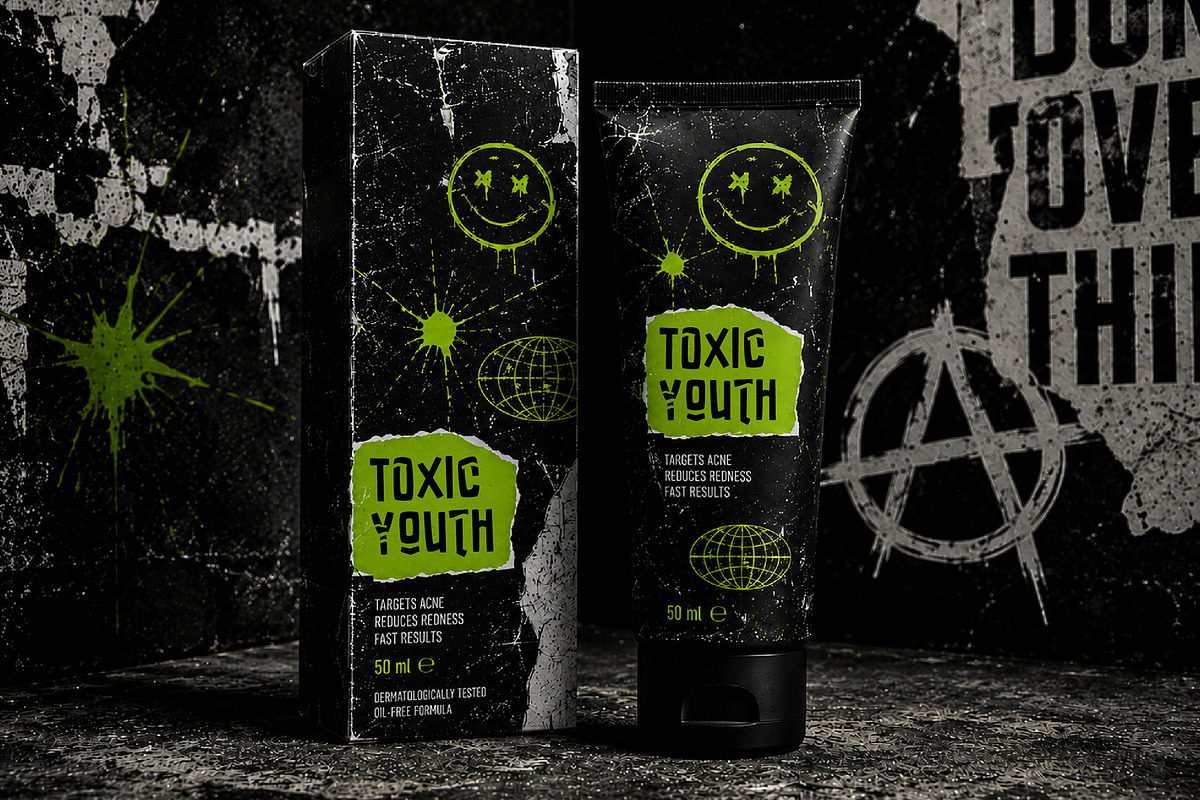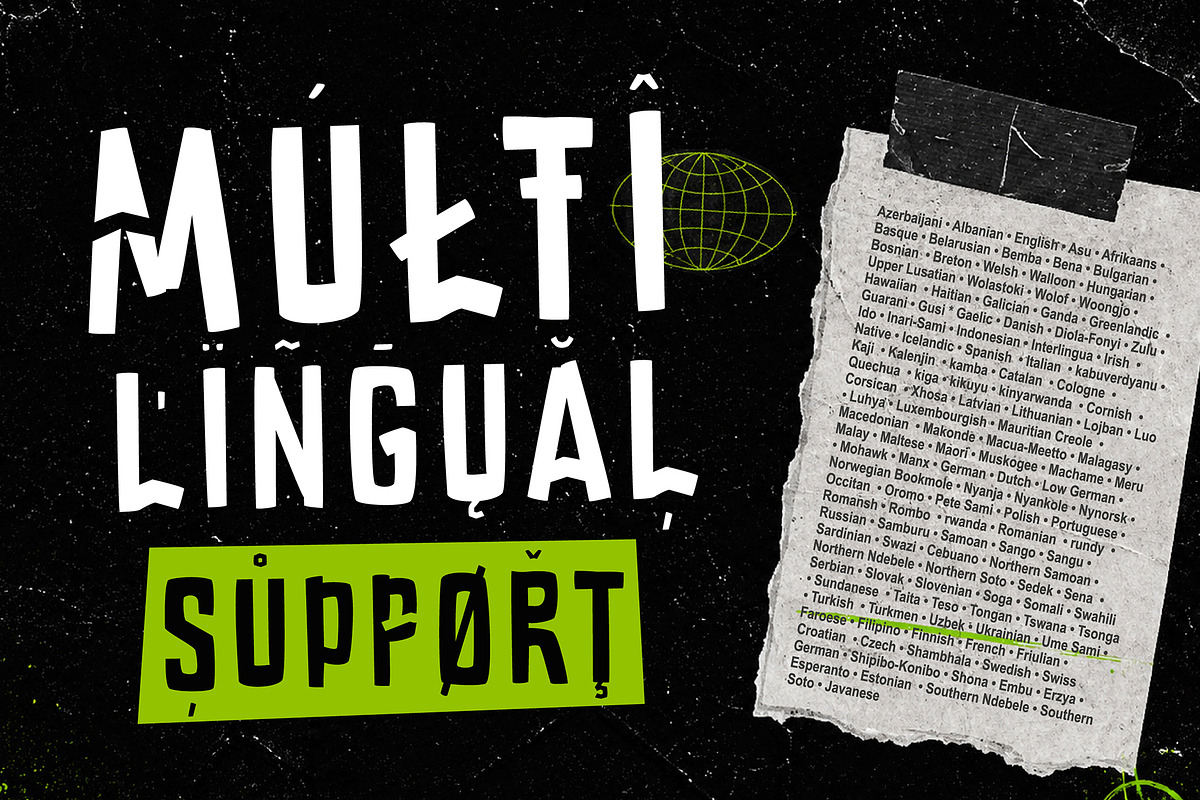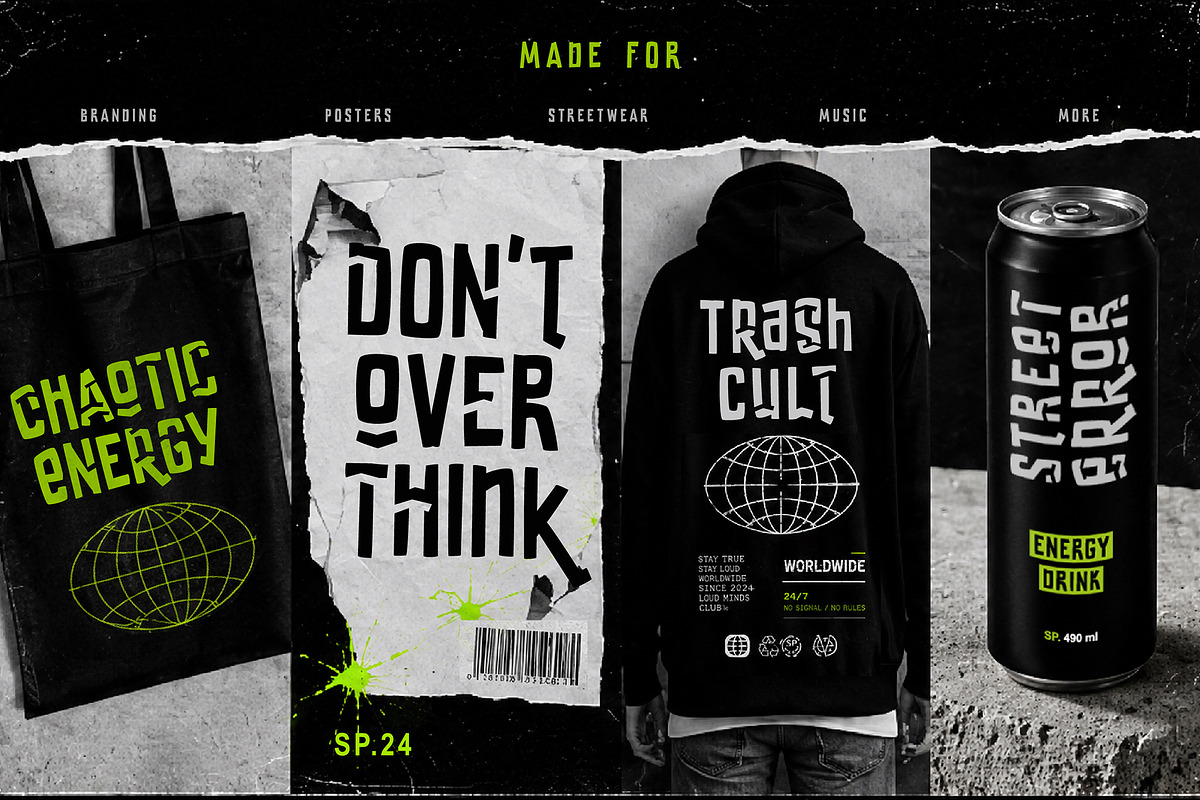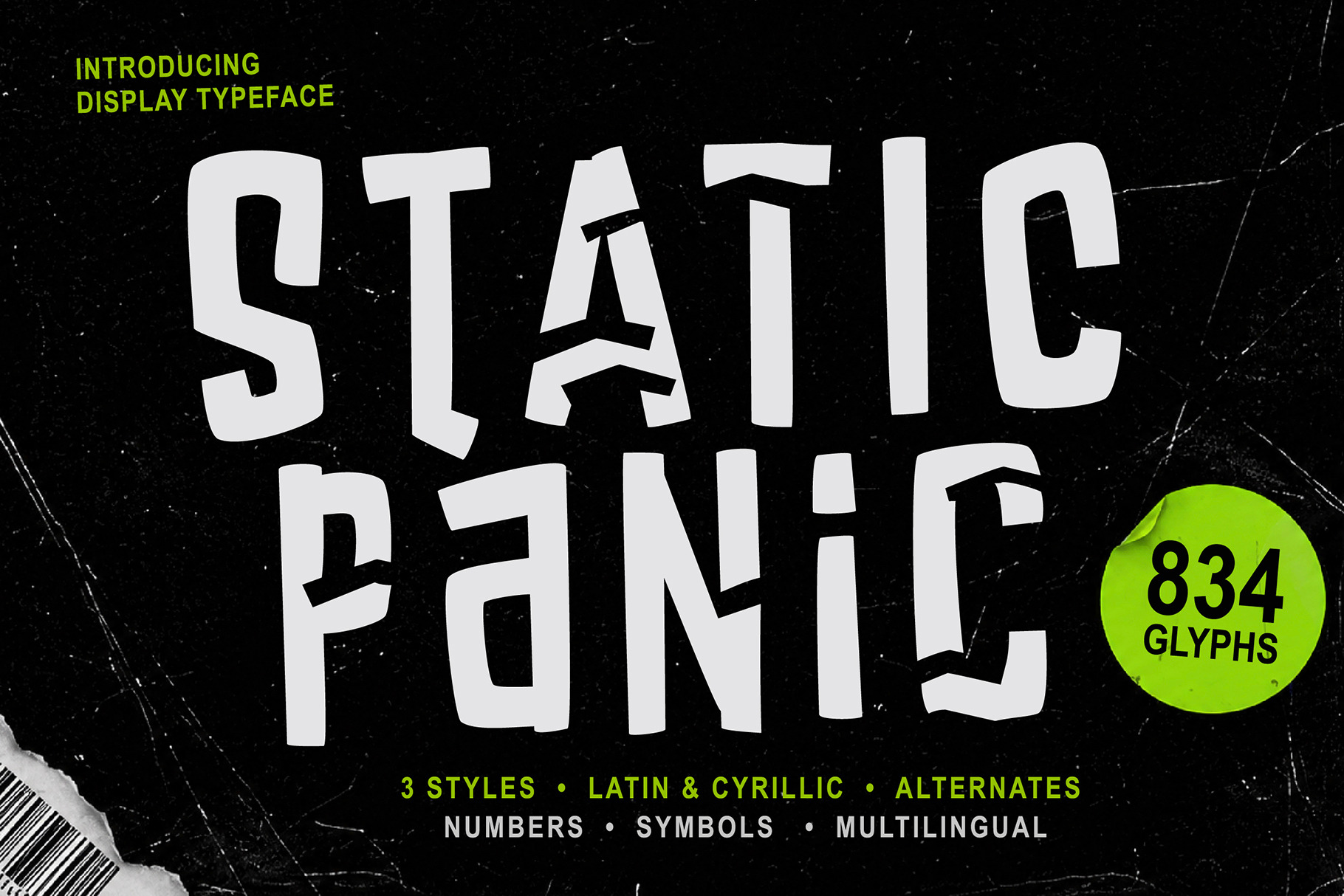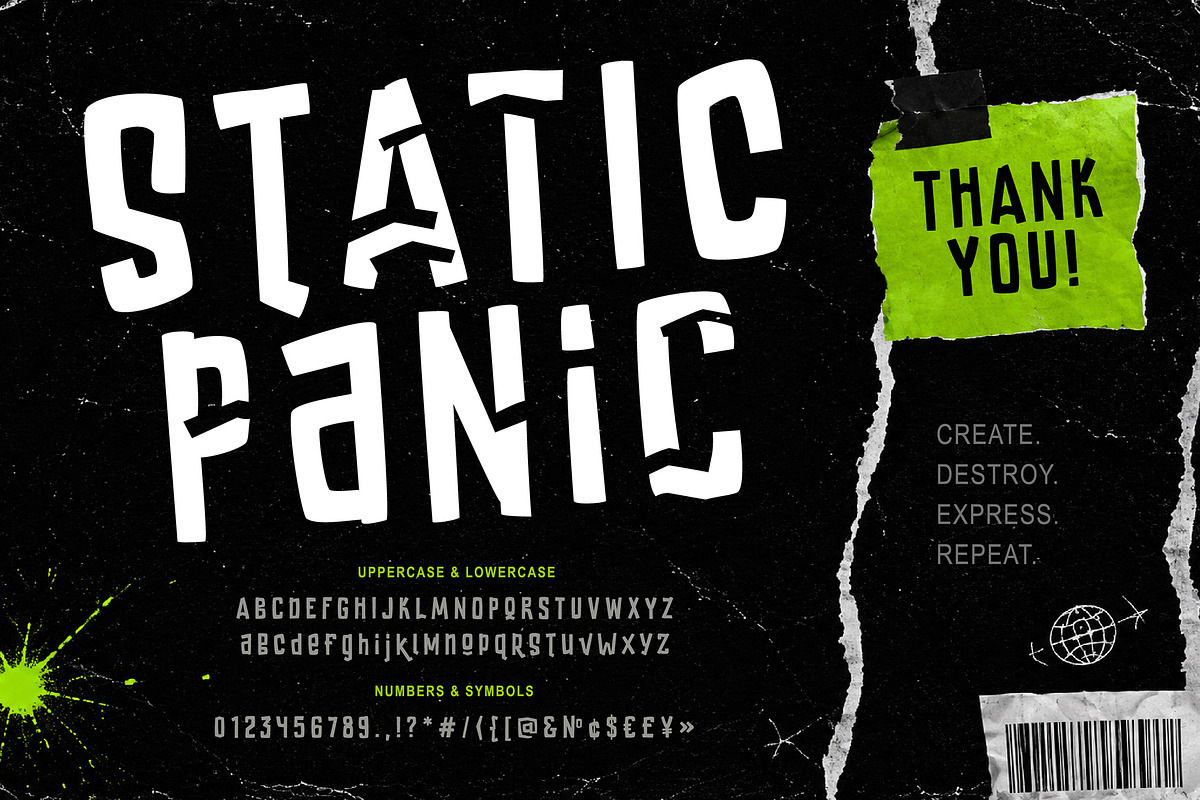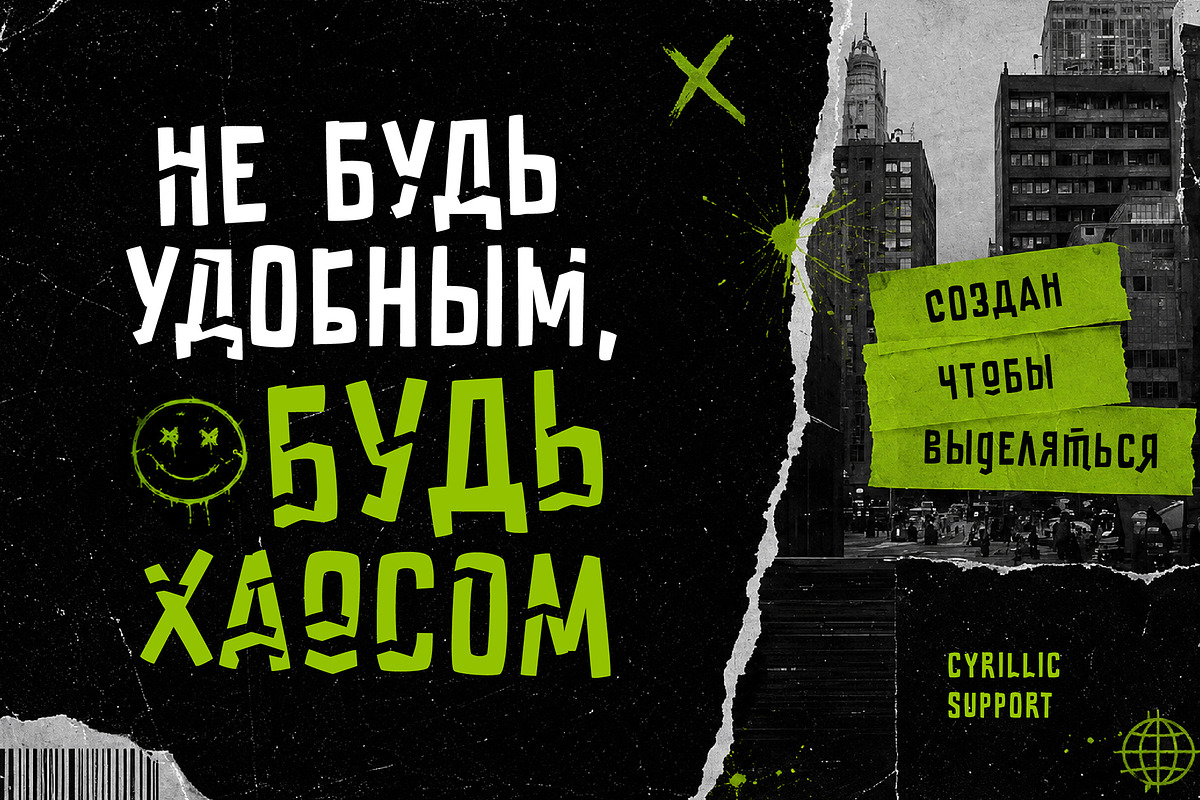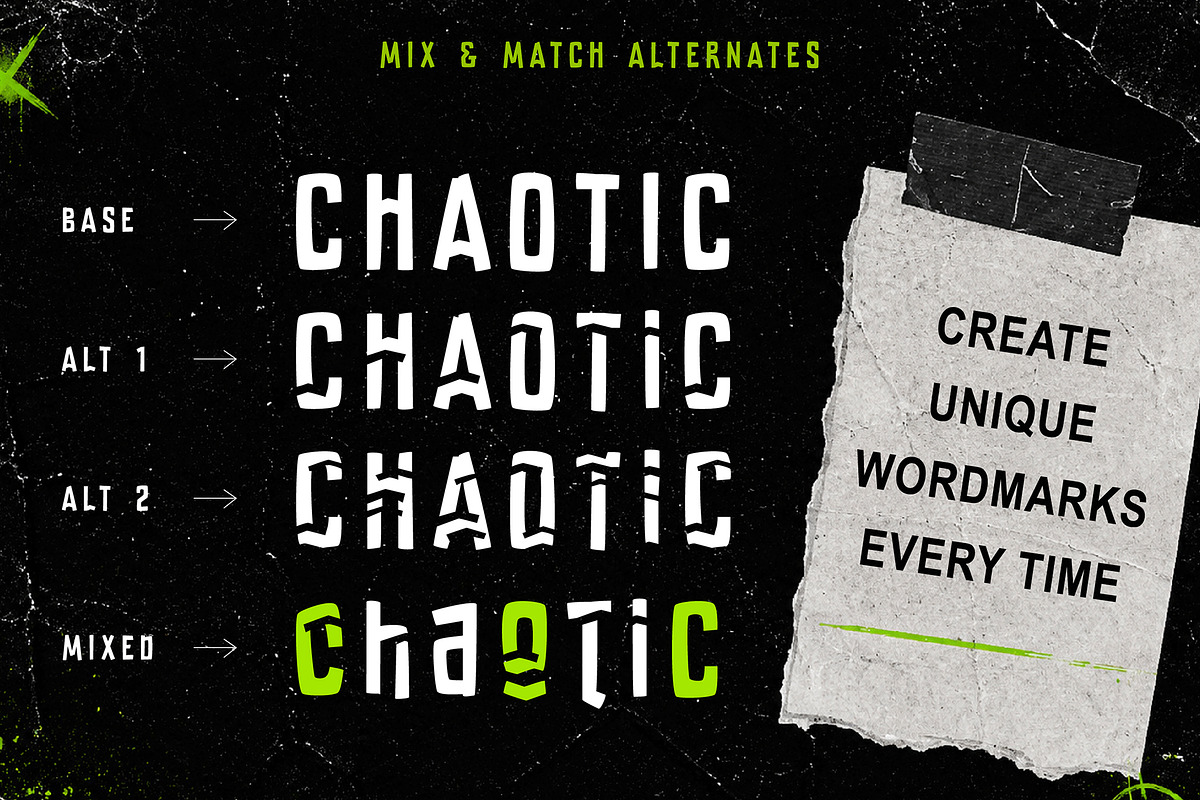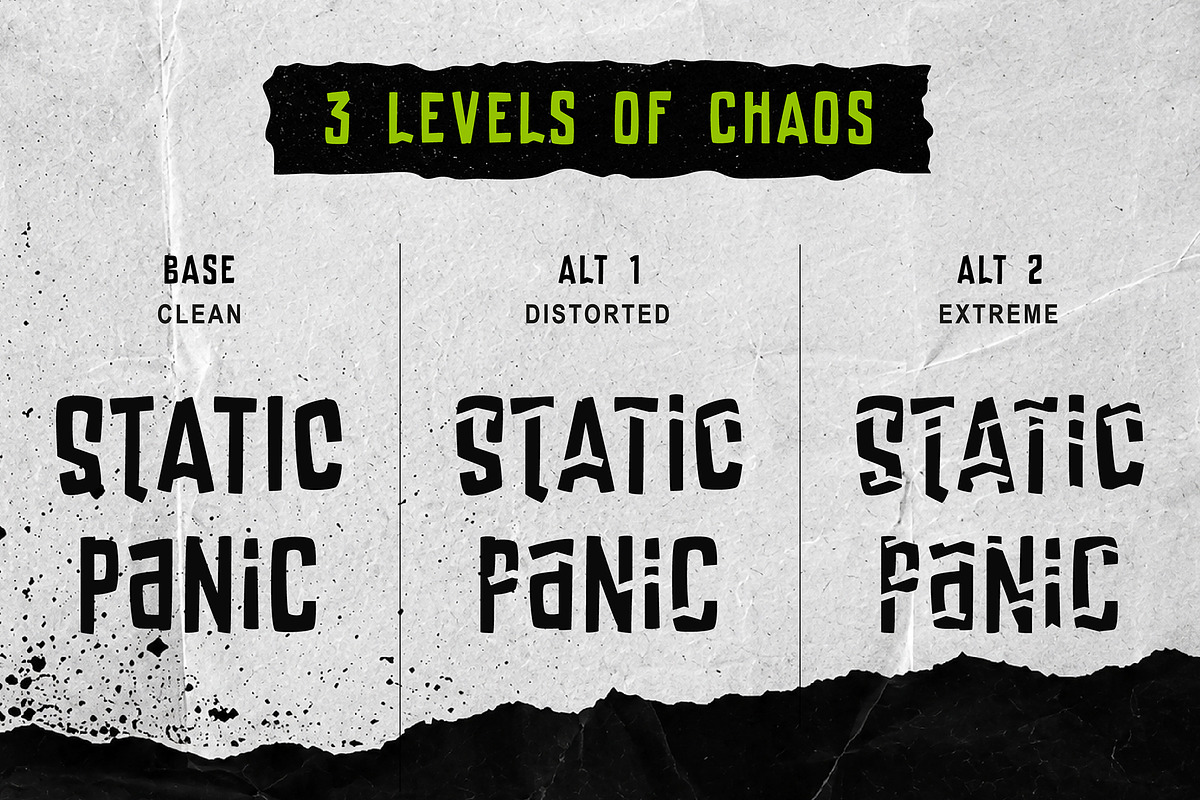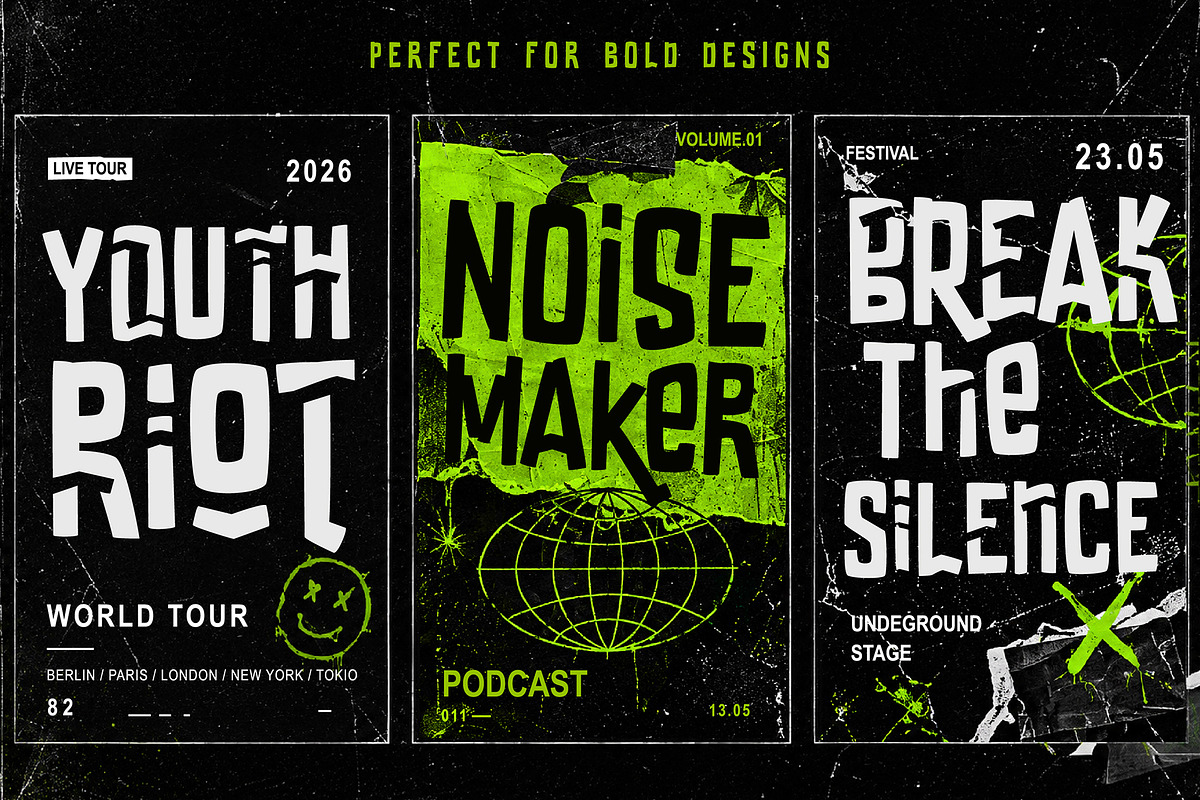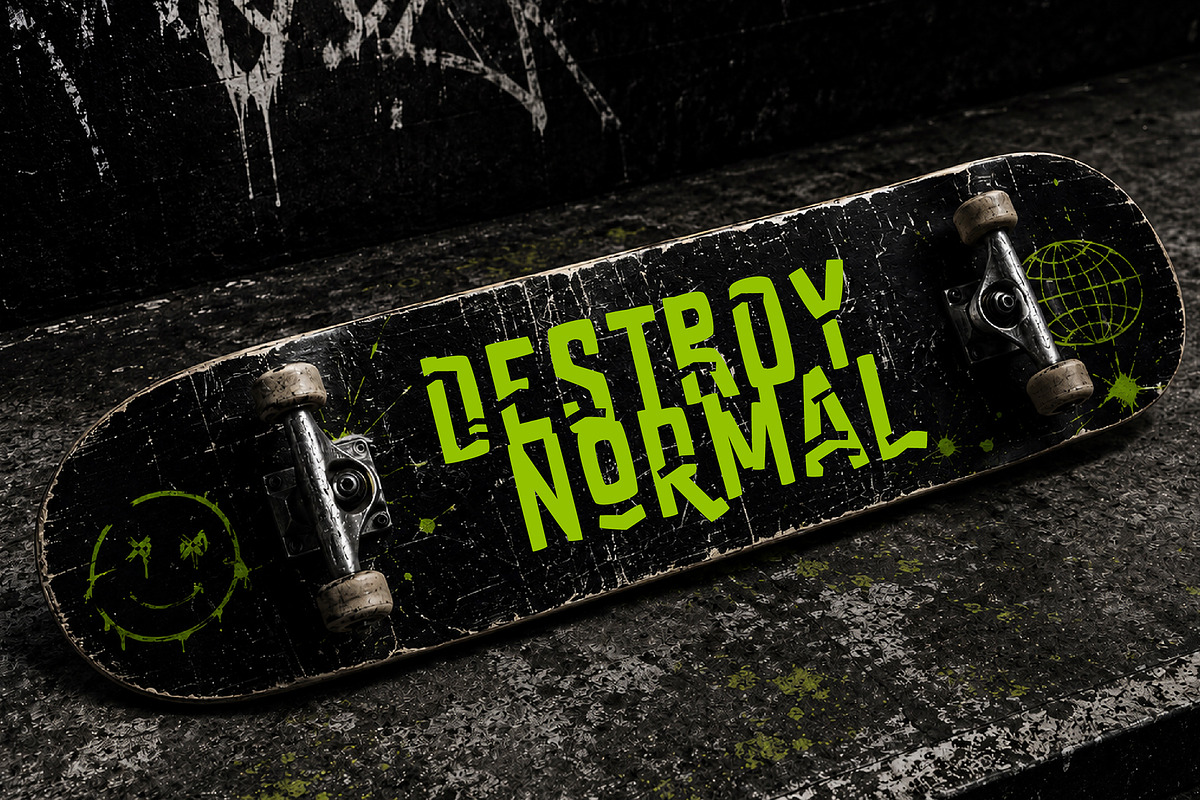
Static Panic – Chaotic Display Font
STATIC PANIC is a bold experimental display font inspired by underground posters, chaotic typography, street culture and modern youth branding.
Designed to stand out instantly, this typeface combines strong condensed letterforms with controlled distortion and layered alternates — allowing you to create unique wordmarks, poster headlines and rebellious visual identities.
The font includes 3 stylistic levels:
Base — clean and readable
Alt 1 — distorted
Alt 2 — extreme chaotic version
Mix and match alternates to build dynamic typography with endless combinations.
Streetwear branding
Music posters
Album covers
Festival graphics
Fashion campaigns
YouTube thumbnails
Energy drink packaging
Skate graphics
Gaming visuals
Underground editorial layouts
Bold social media content
834 glyphs
Latin support
Cyrillic support
Uppercase & lowercase
Numbers & symbols
Stylistic sets
Created for designers who want typography with attitude.